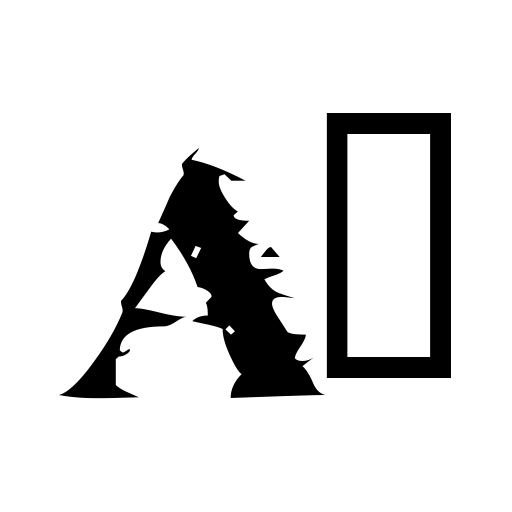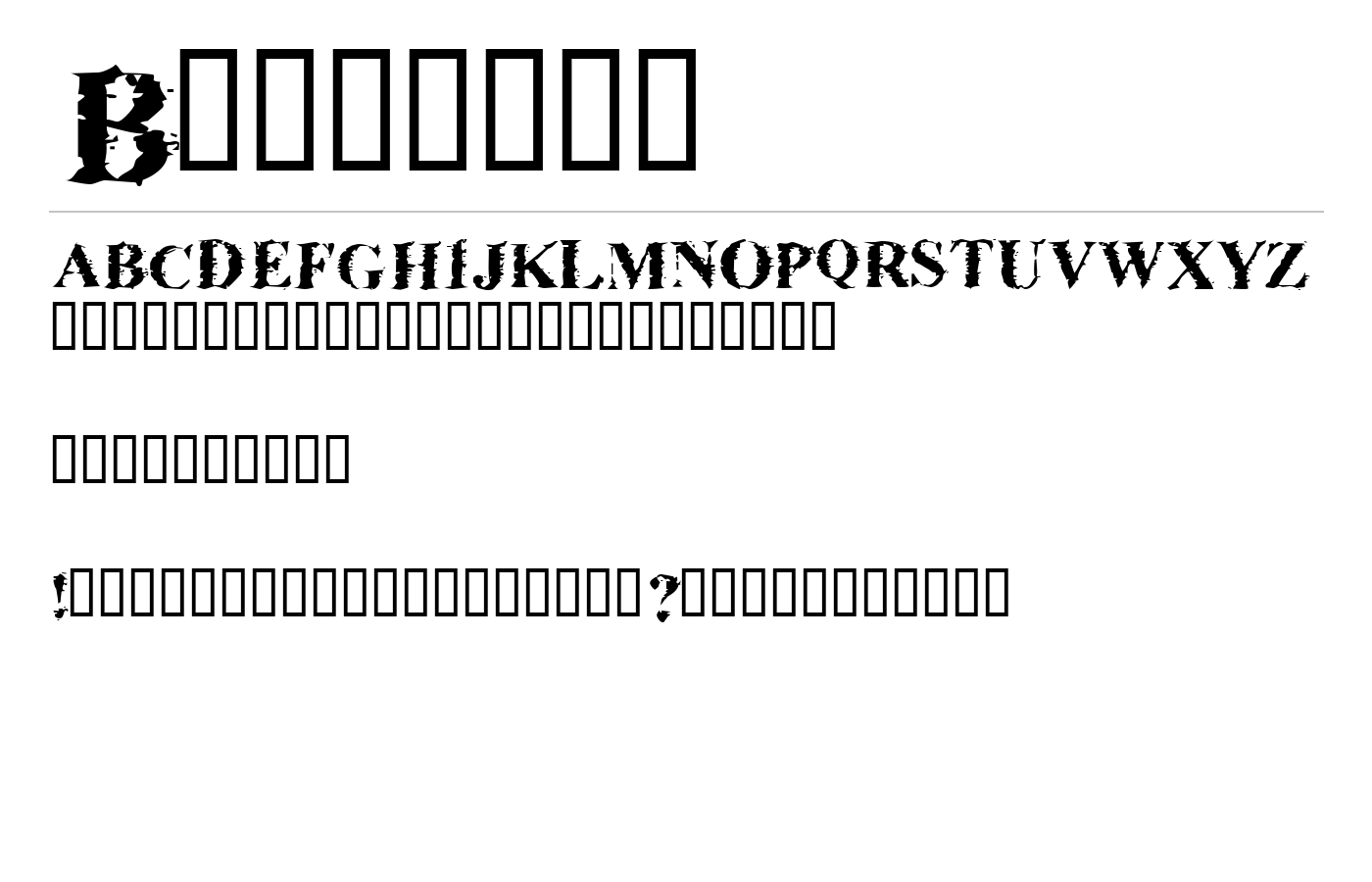
Brackish is a bold serif font with a distressed, textured appearance that evokes a vintage and rugged feel. Its uppercase letters feature sharp, strong serifs combined with a weathered, rough surface, giving it a gritty, handcrafted character perfect for designs needing a bold, eye-catching, and rustic style. This font works well in posters, logos, and branding for adventurous or vintage-inspired projects where a dramatic and unique impression is desired.
Brackish Font